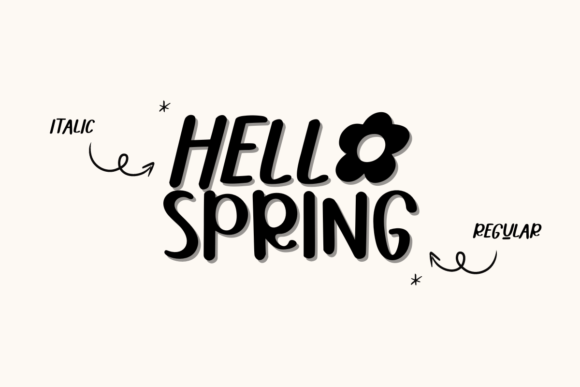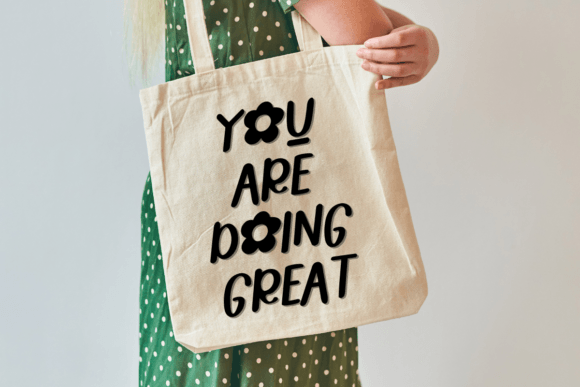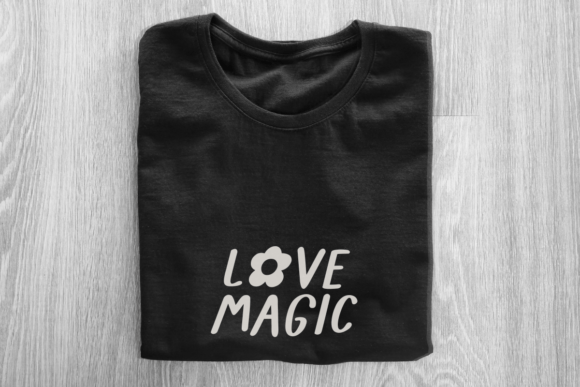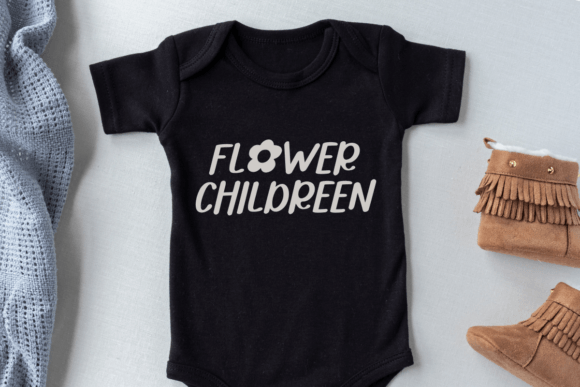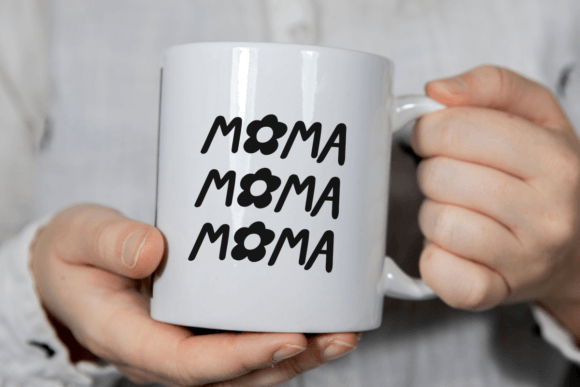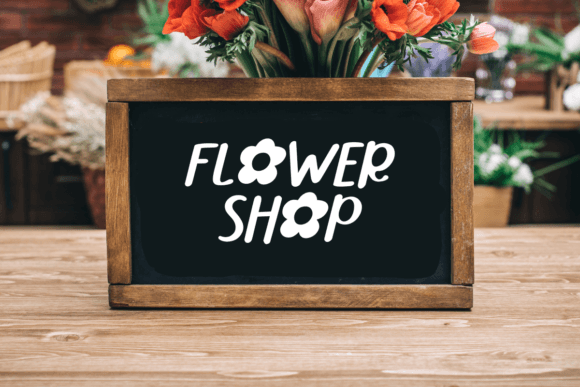
Unleash Your Creativity with Blooming Growing Font
Have you ever found yourself in a moment of pure creative bliss, surrounded by colorful papers, half-finished projects, and a dash of inspiration? For many of us, this is where the magic happens, and our imagination knows no bounds. It’s the perfect moment to break out your favorite font and add a personal touch to your masterpiece.
That’s where Blooming Growing Font comes in – a beautiful, stylized handwriting design that brings life and vitality to your creative projects. Whether you’re customizing t-shirts, adding a personal touch to birthdays, weddings, or significant events, this font transforms every occasion into cherished keepsakes. As a designer, you know the value of a versatile and unique font that can elevate your work and make it truly special.
With Blooming Growing Font, you’ll have the perfect partner to craft vibrant memories that echo with uniqueness and charm. Its beauty lies in its simplicity, making it an ideal choice for designers who crave a touch of elegance and whimsy in their work.
Blooming Growing Font Key Features
- Unique Characteristics: Blooming Growing Font is a dynamic, hand-drawn font that changes shape and size as it grows, creating a visually engaging effect.
Blooming Growing Font Review
Overall, I think the “Blooming Growing Font” is a delightful addition to any digital design project. ✨ It’s playful, fun, and adds a touch of whimsy to text. The font’s varying line widths and subtle flourishes create a sense of movement and energy.
One of the standout features of this font is its versatility. ✨ It works well in a variety of contexts, from headings and titles to body text and even social media posts. The font’s unique design also makes it a great choice for creative and artistic projects.
- Playful and fun design
- Good for creative and artistic projects
- Versatile and works well in various contexts
- Unique design that adds a touch of whimsy to text
- May be difficult to read at small font sizes
- Not suitable for formal or professional projects
- Can be overwhelming if used extensively
In conclusion, I think the “Blooming Growing Font” is a great choice for designers looking to add some personality to their projects. While it may have some limitations, its unique design and versatility make it a valuable addition to any design toolkit.
Use Blooming Growing Font to create eye-catching headlines and titles.
Experiment with different font sizes and colors to create a unique visual effect.
Combine Blooming Growing Font with other creative elements to create a stunning design.
Wedding invitations and event planning materials
Marketing materials and advertising campaigns
Can I customize the Blooming Growing Font to fit my design needs?
Yes, you can customize the Blooming Growing Font to fit your design needs. The font is designed to be highly customizable, with a wide range of OpenType features and CSS variables that can be adjusted to create different effects. You can experiment with different values for the `–blooming-growth` and `–blooming-size` variables to achieve the desired look and feel.